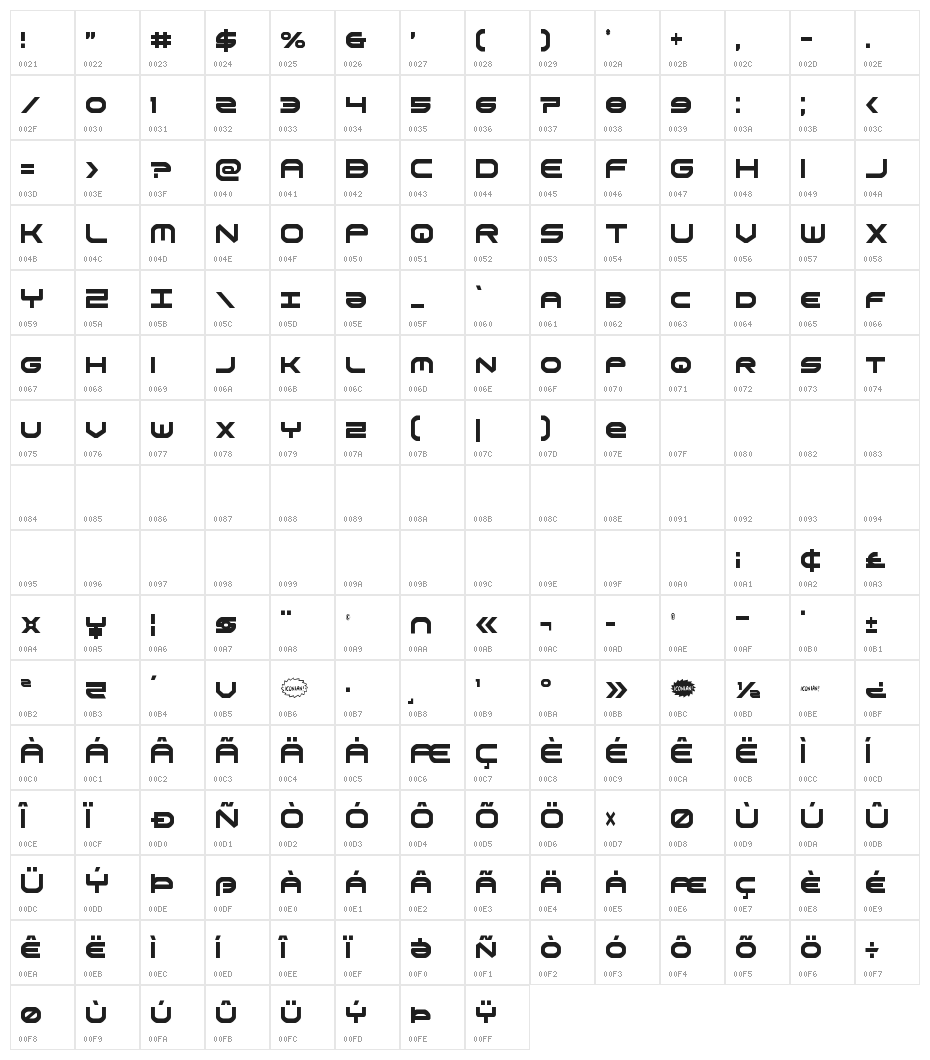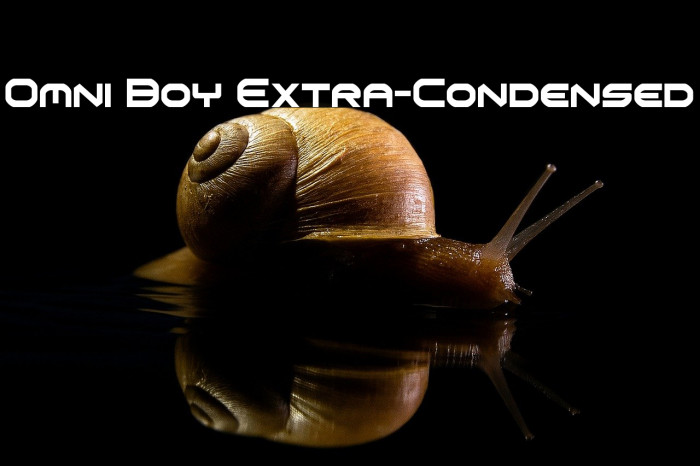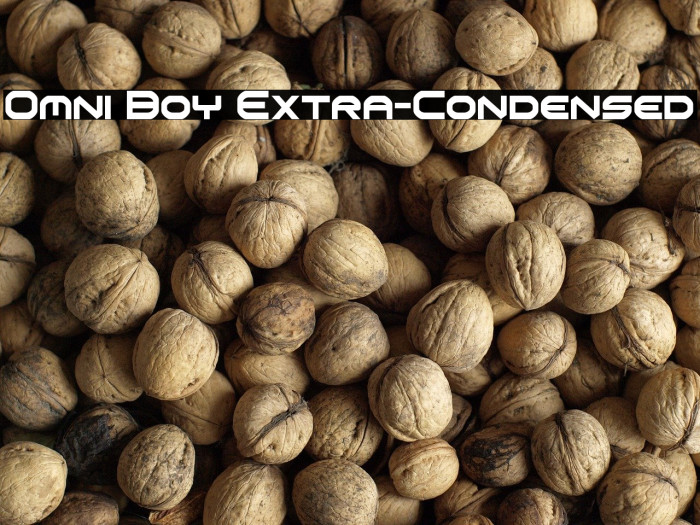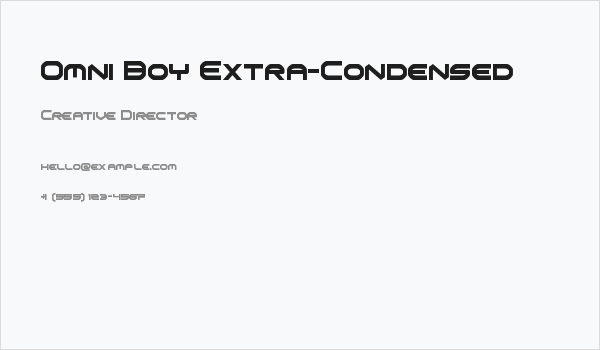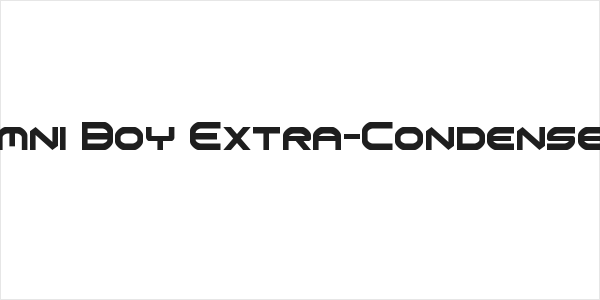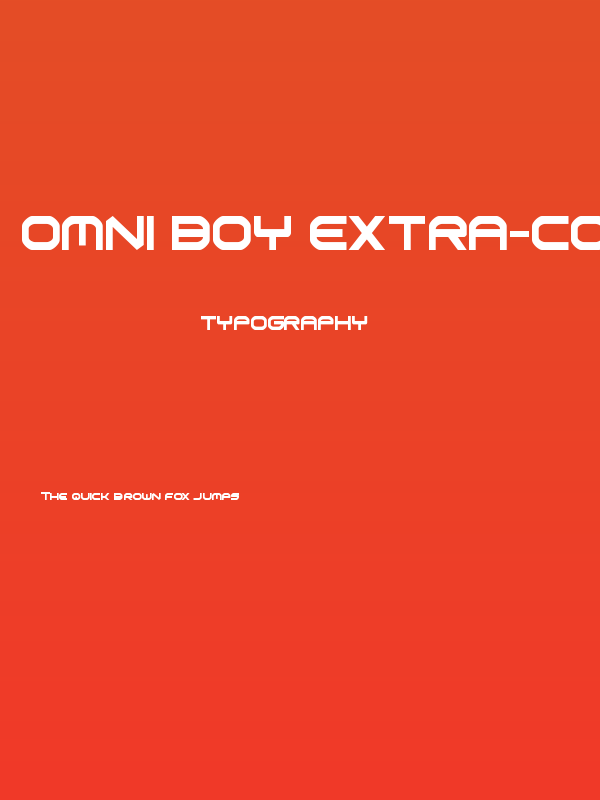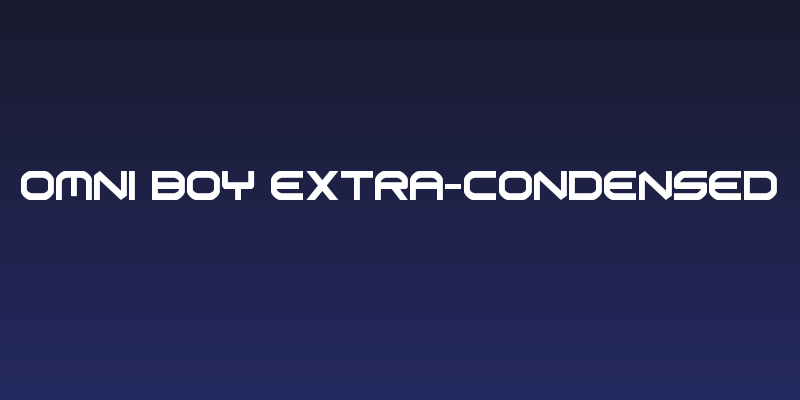
Omni Boy Extra-Condensed Font
Omni Boy Extra-Condensed Description
This typeface features a futuristic and geometric design, characterized by its bold and angular letterforms. The characters are highly stylized with a consistent thickness throughout, giving it a uniform appearance. The font's extra-condensed nature makes it ideal for space-saving applications while maintaining readability. The uppercase and lowercase letters share a similar height, enhancing its modern aesthetic. The numerals and special characters follow the same design principles, ensuring a cohesive look across all glyphs. This font is well-suited for projects that require a contemporary and edgy feel.
| Proposed Projects | Ideal for sci-fi themed designs, technology branding, video game titles, and modern posters. |